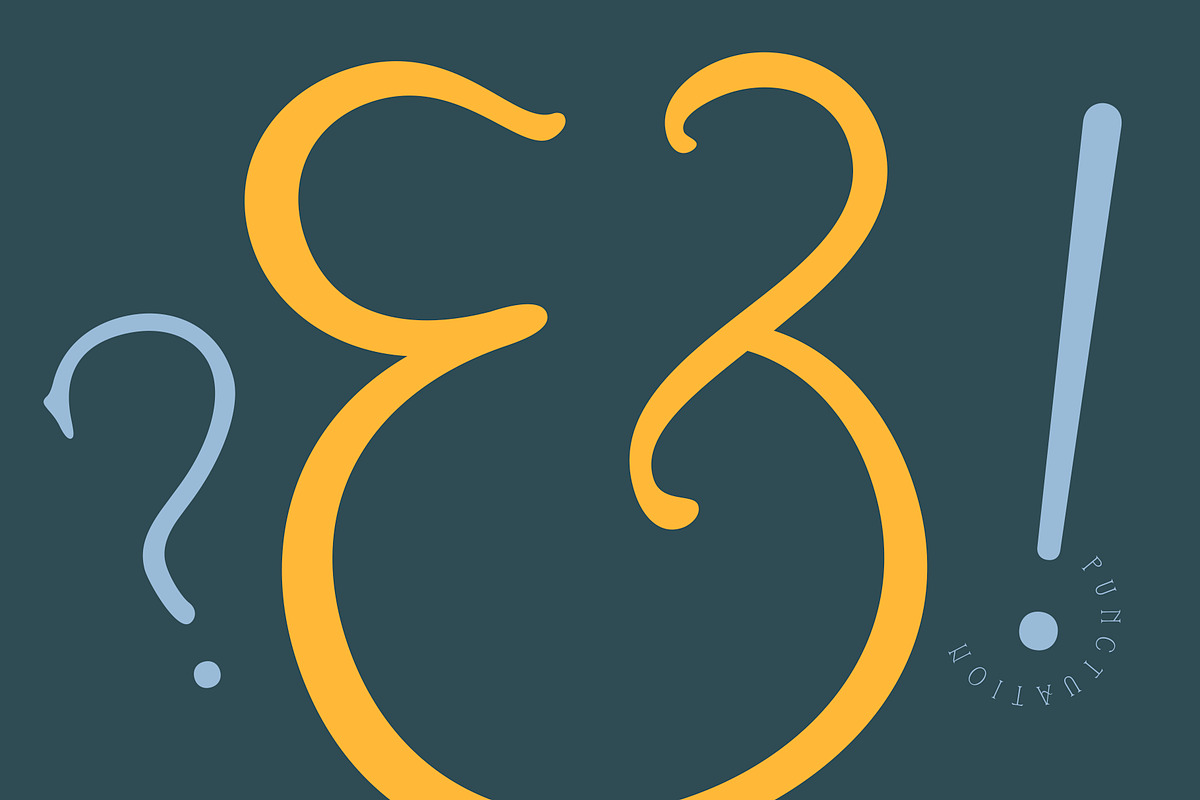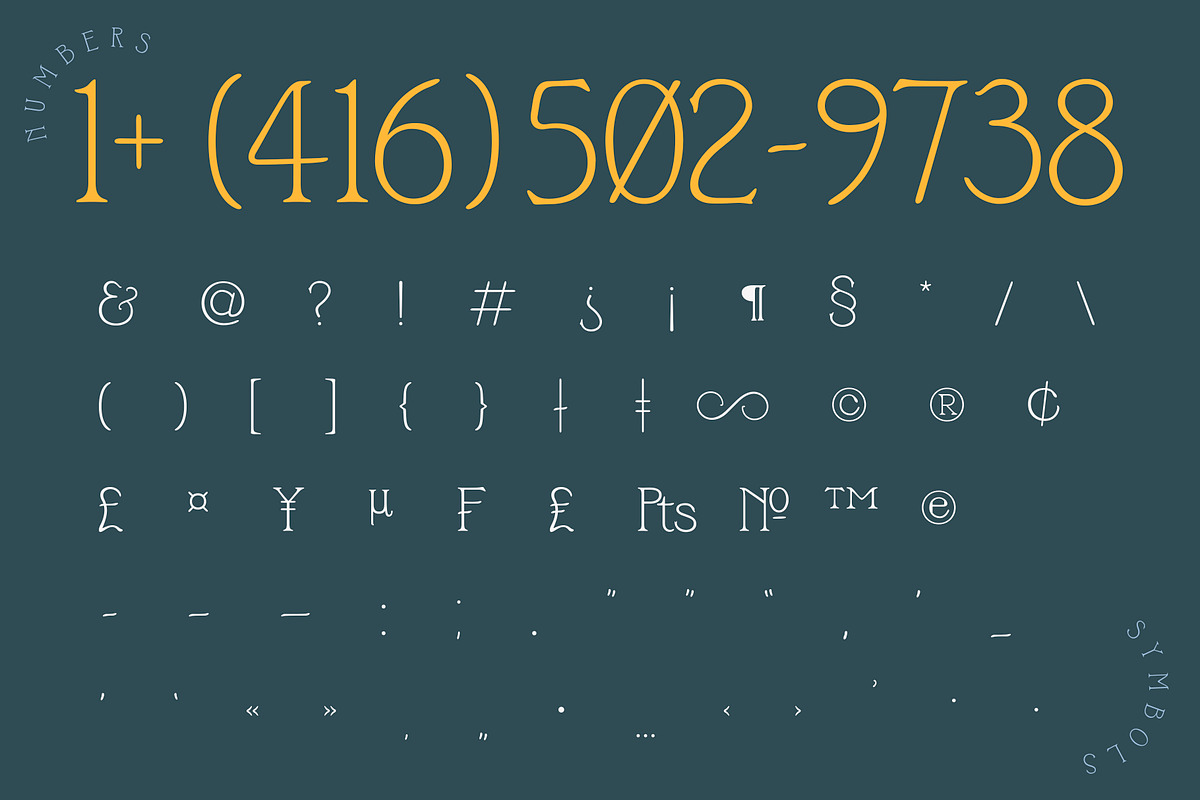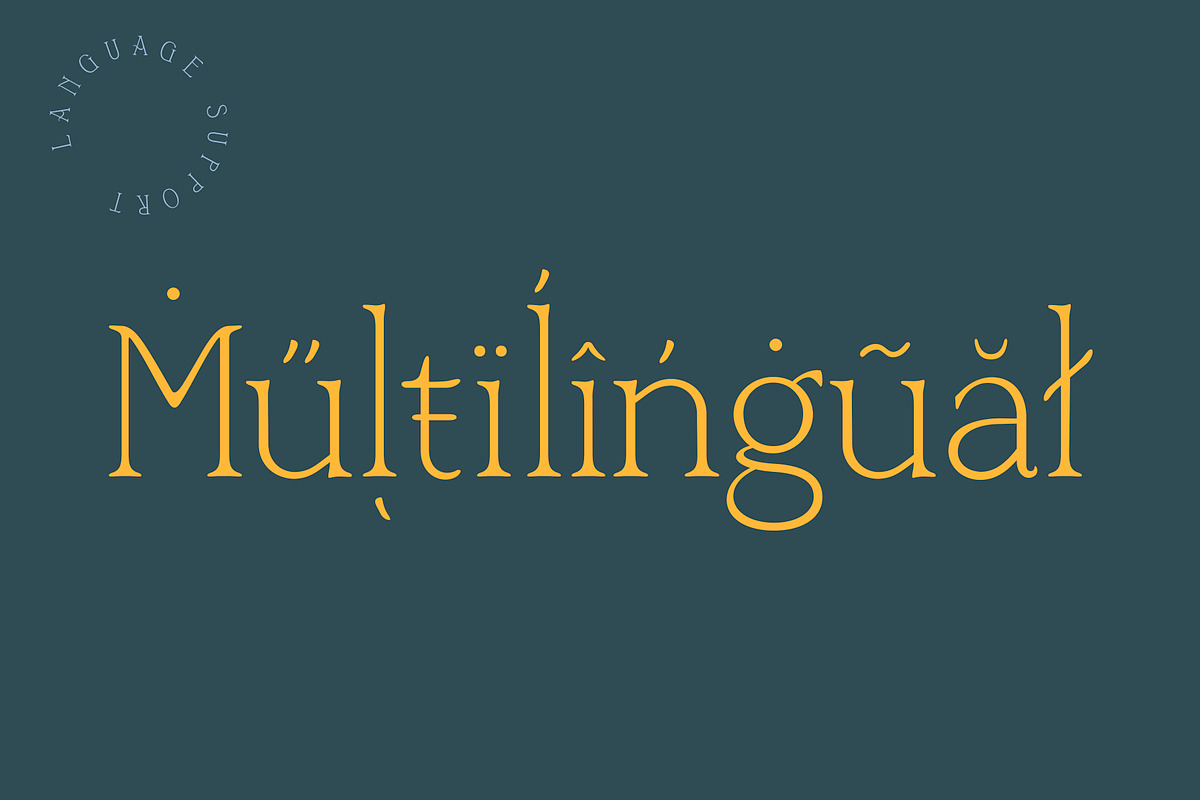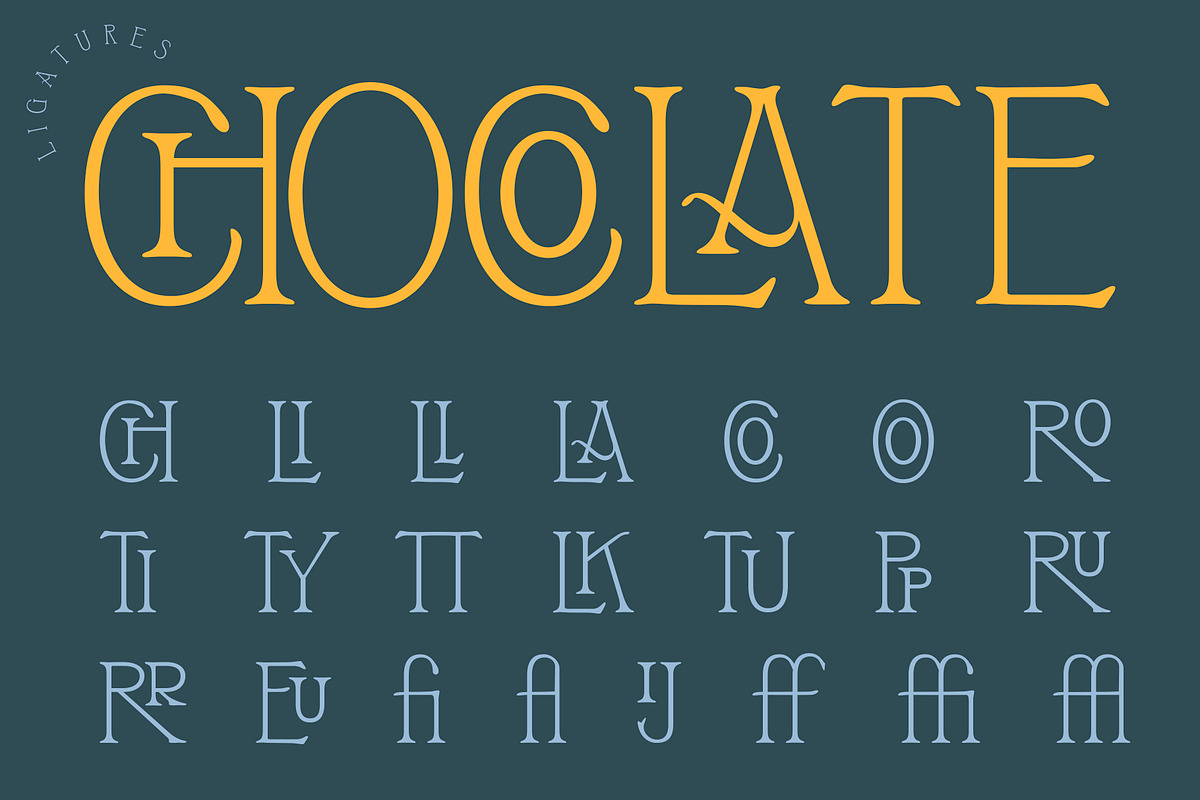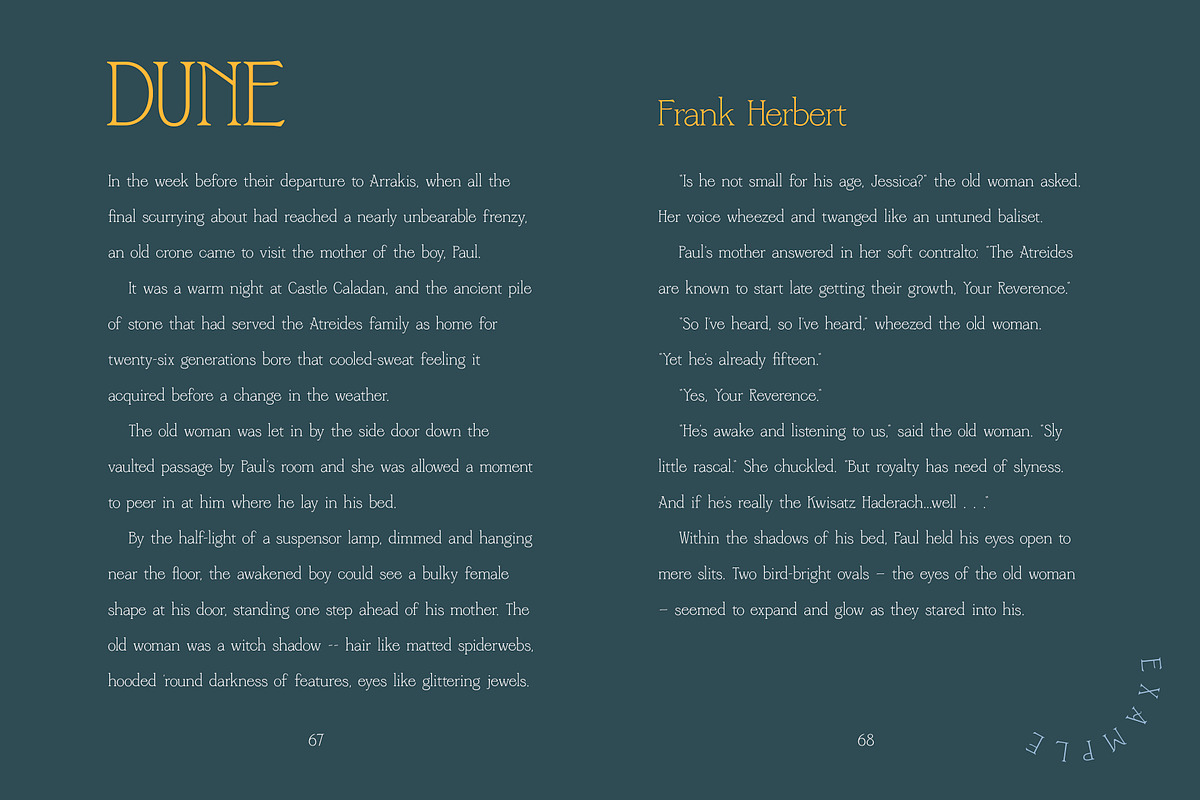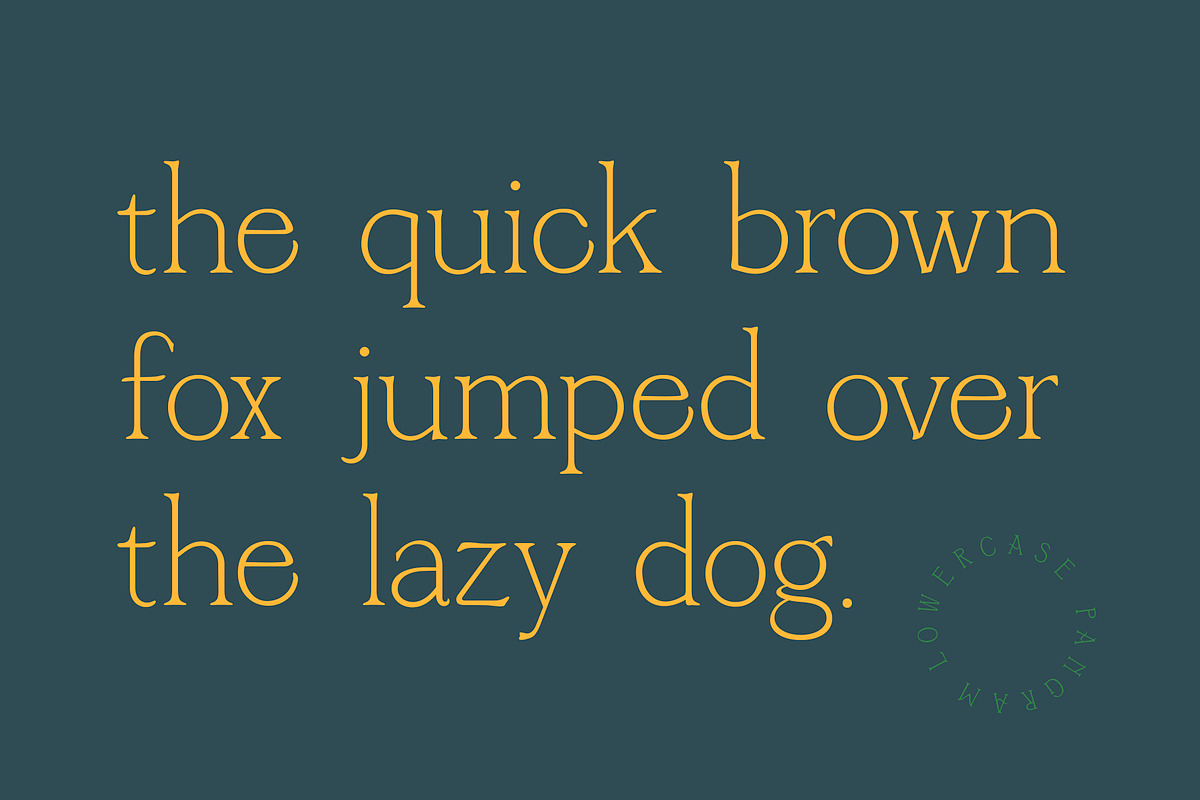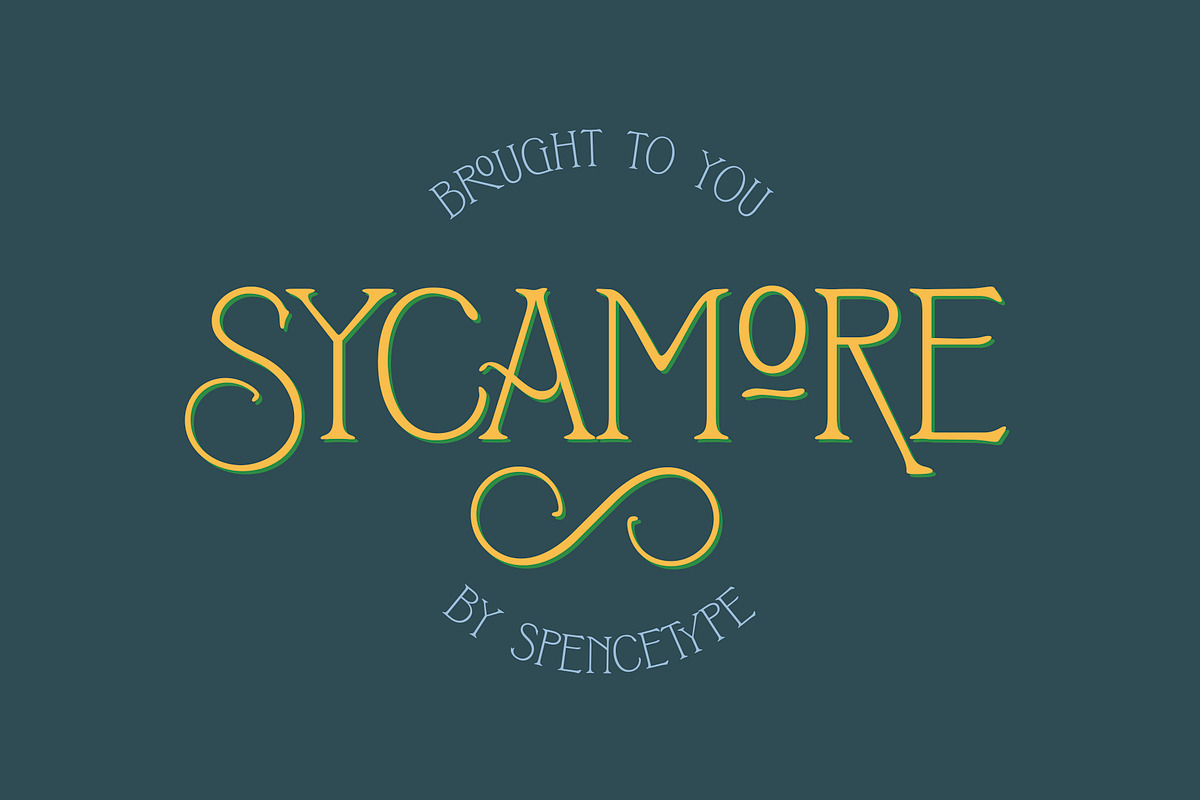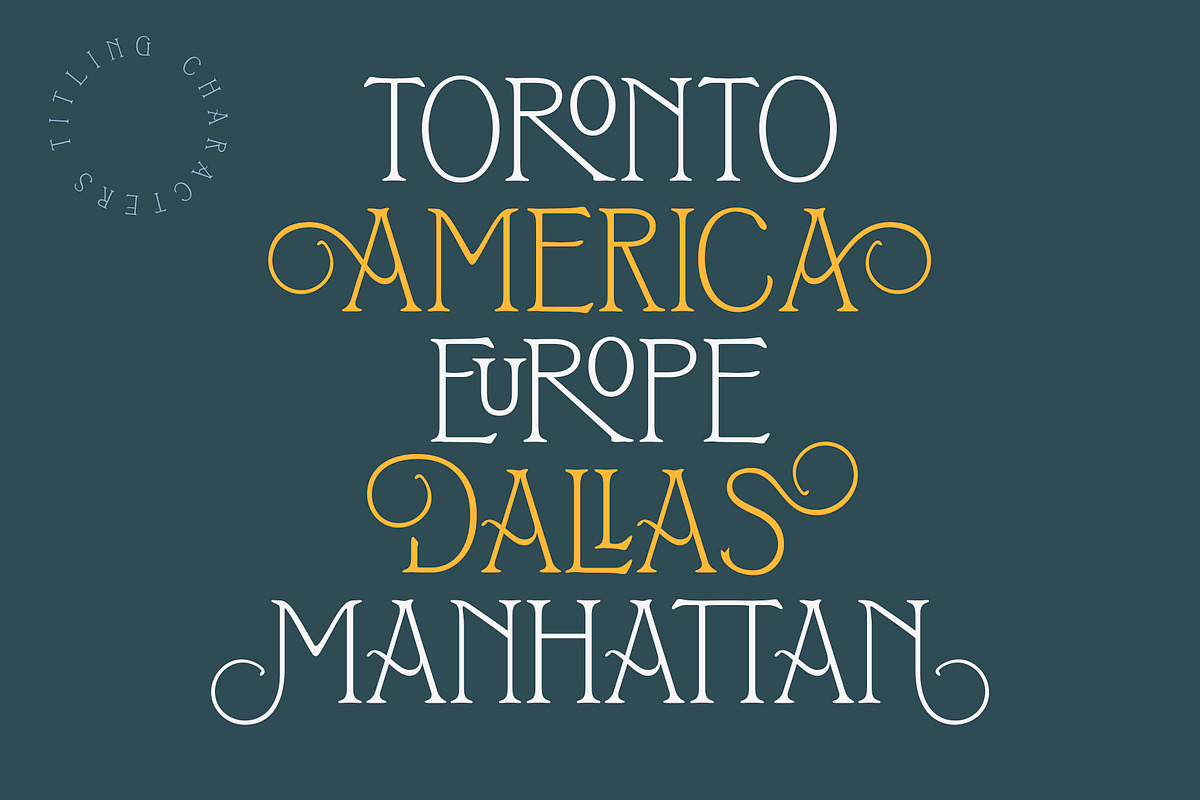
Sycamore — Display Font
The second release from SpenceType.
Sycamore is a brand new typeface inspired by art nouveau typography. This font contains over 500 glyphs including uppercase, lowercase, numbers, punctuation, symbols, ligatures, and titling alternatives. It supports almost all latin-based alphabets.
- This font contains over 500 glyphs including uppercase, lowercase, numbers, punctuation, symbols, ligatures, and titling alternatives.